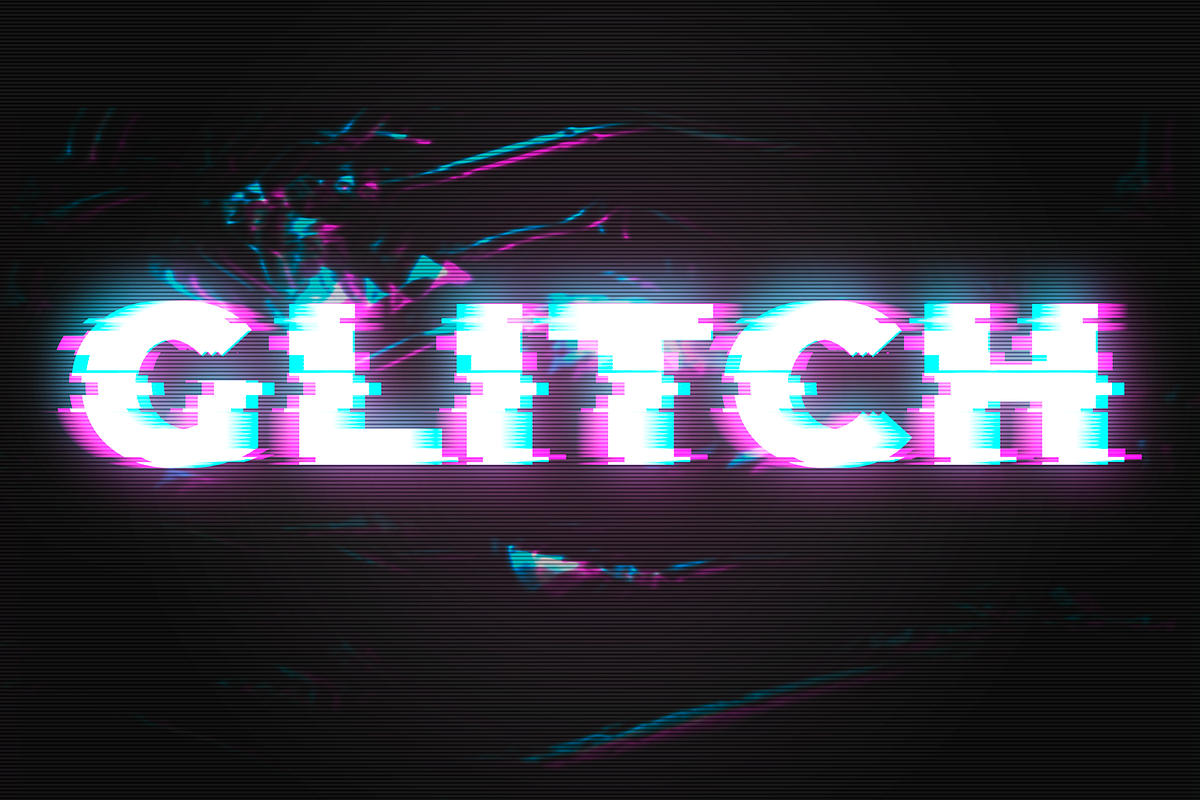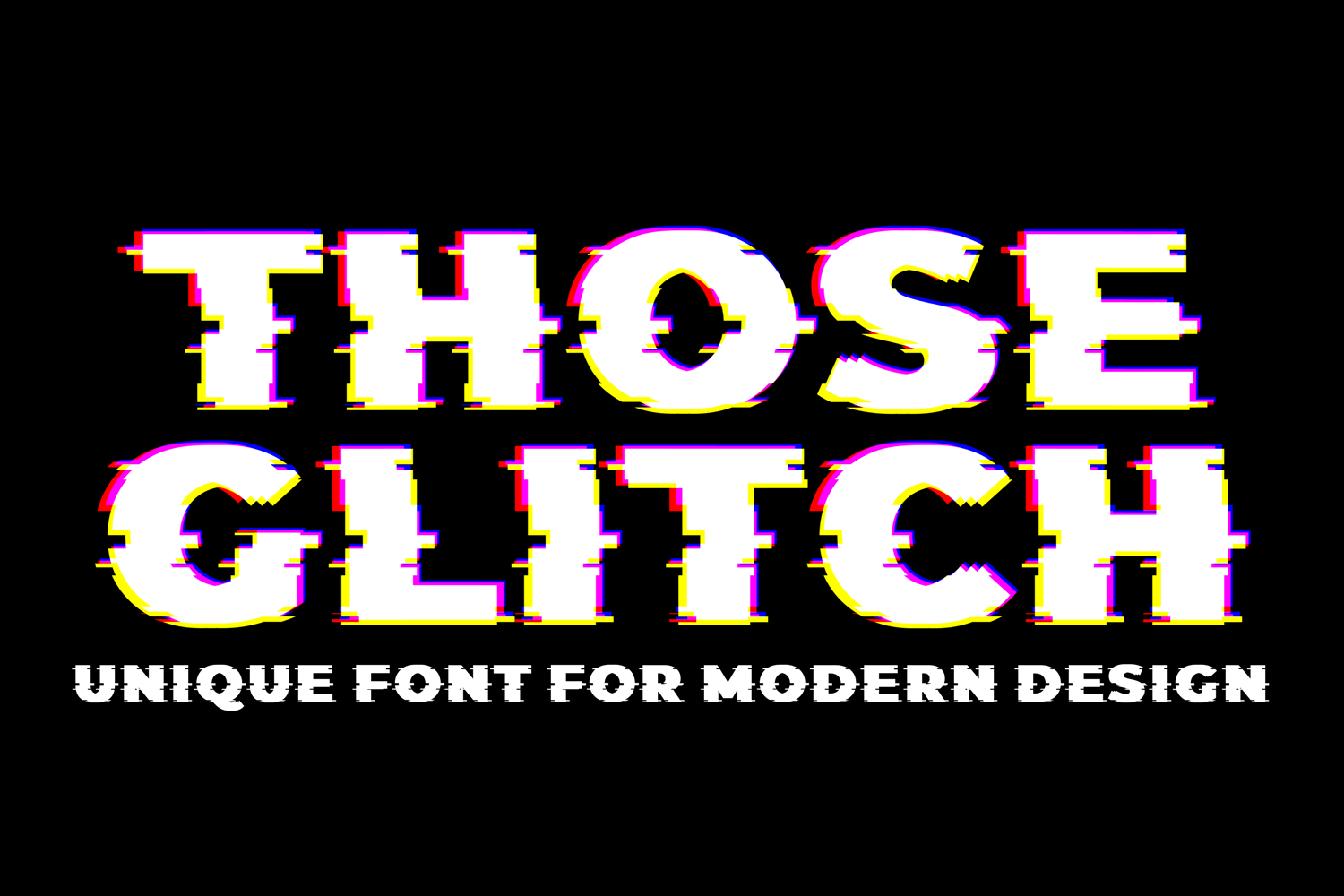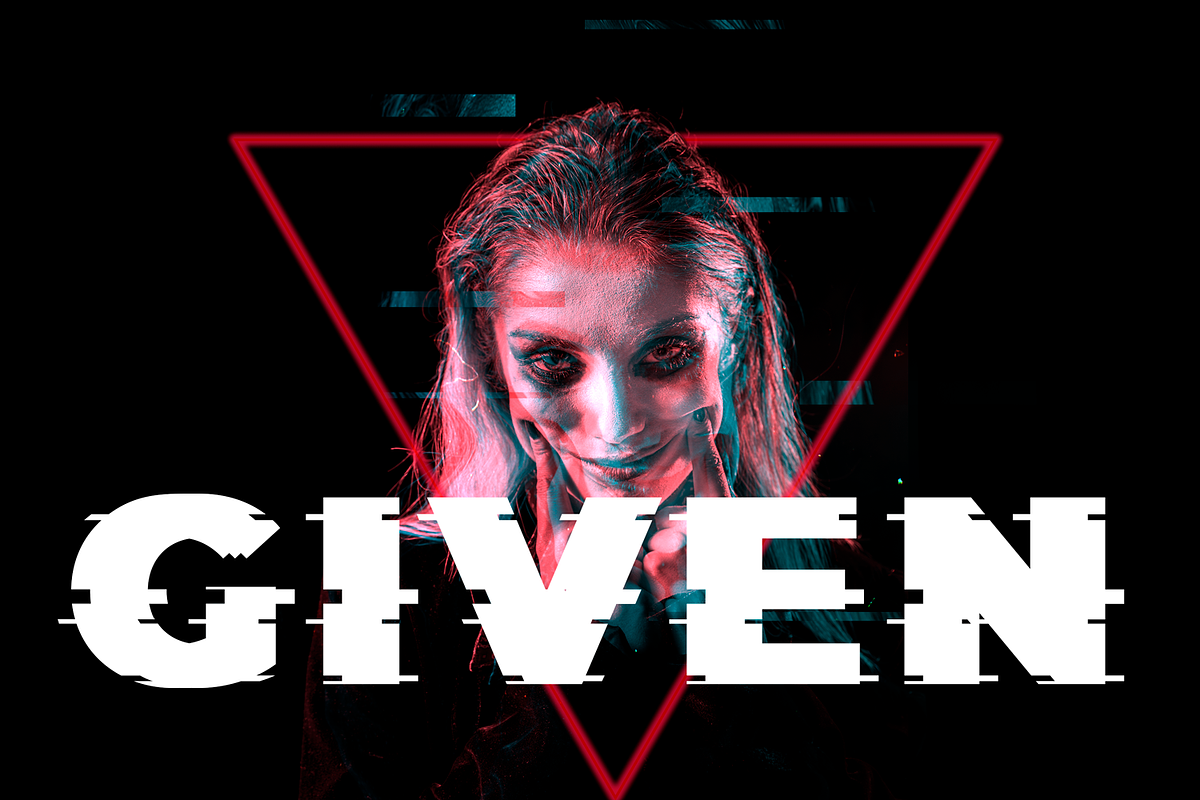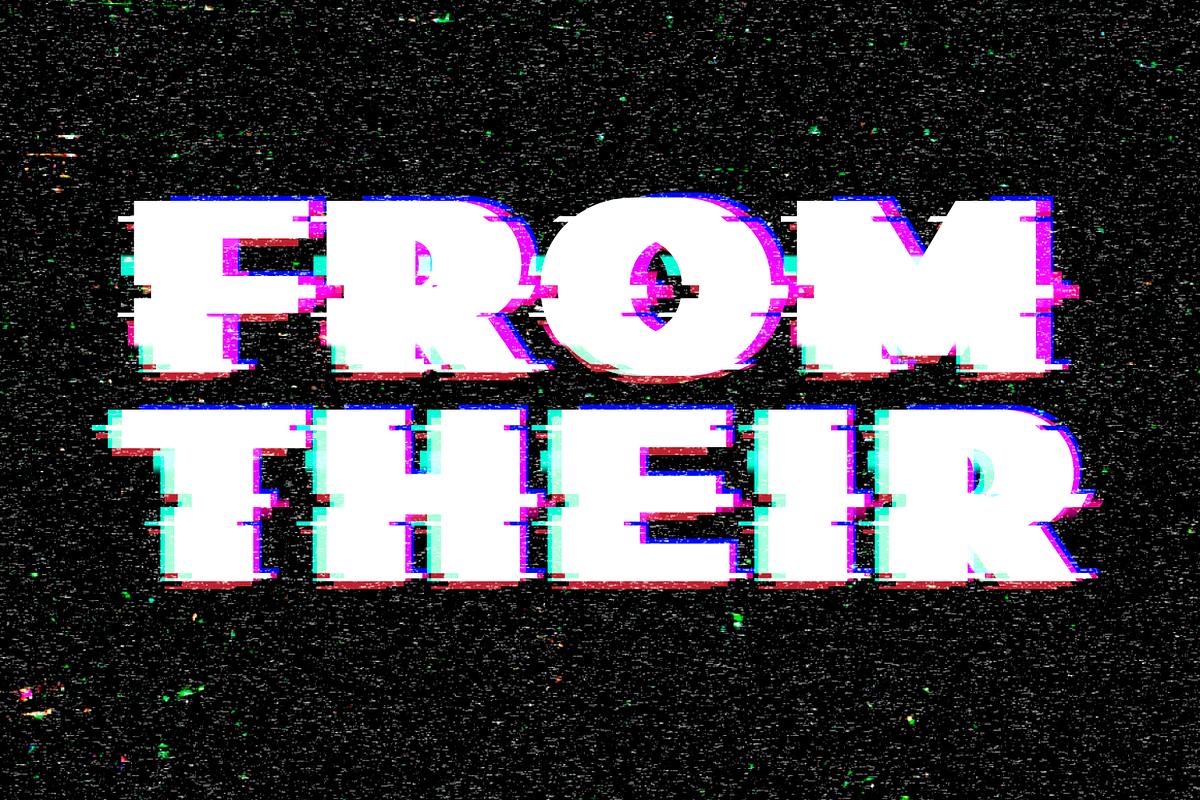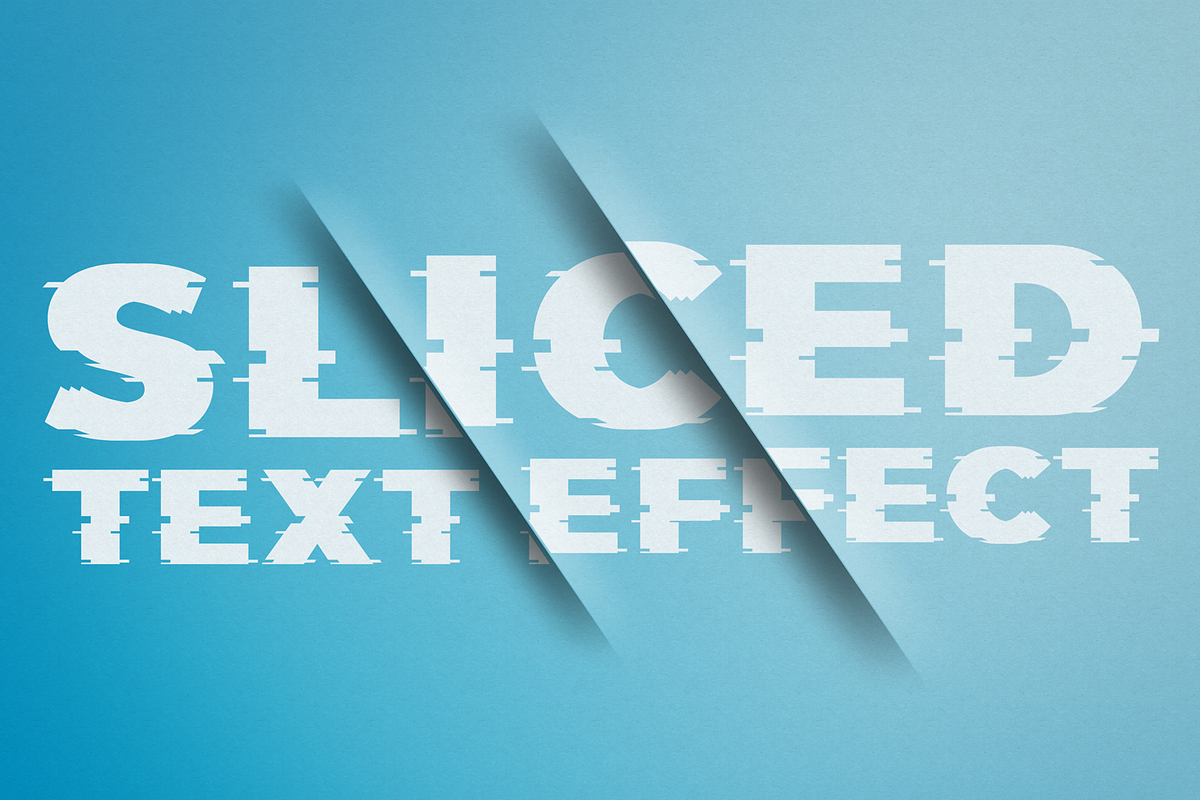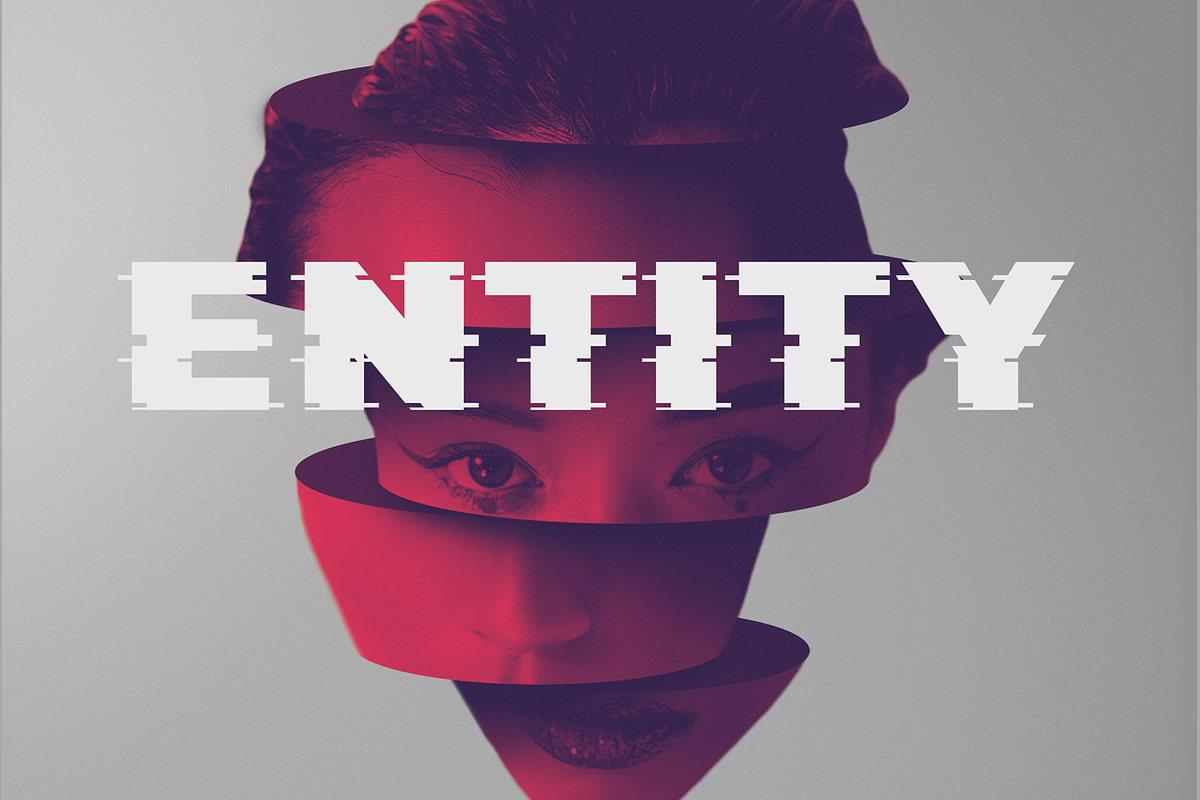
Those Glitch Font
Those Glitch Font is a sans serif type of bold and italic type. It's in the form of horizontal pieces like glitch effect. Each sans serif letter has been individually distorted in stages, using detailed high resolution effects. Inspired by science fiction movies and games, Fault is a beautiful, highly detailed display font that will take the hassle out of creating a glitch text effect. This font it’s perfect for , poster, logo, magazine, cover, banner, tshirt and headers, or even large-scale artwork.